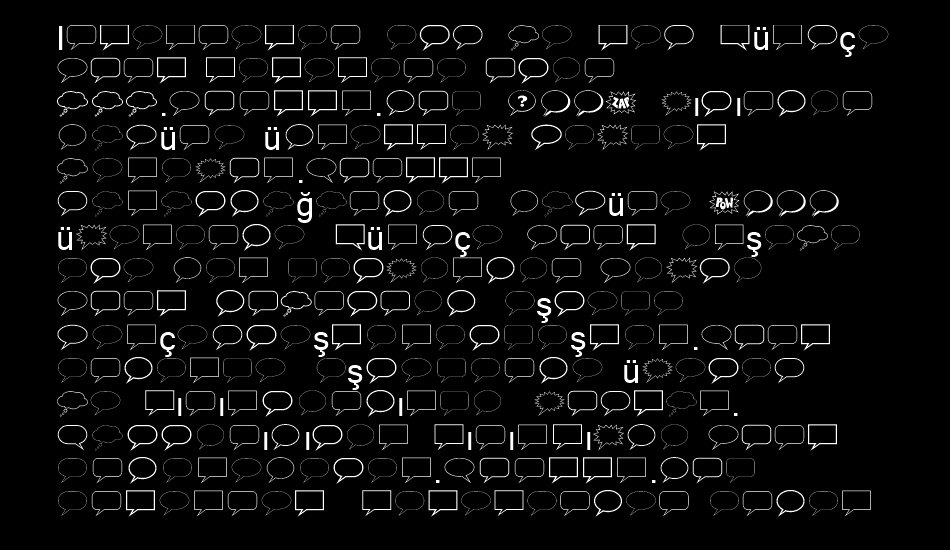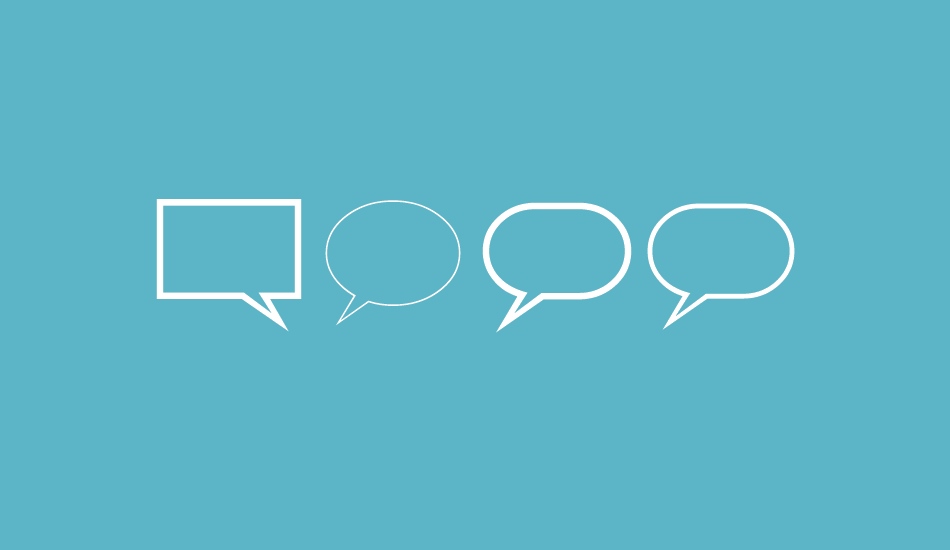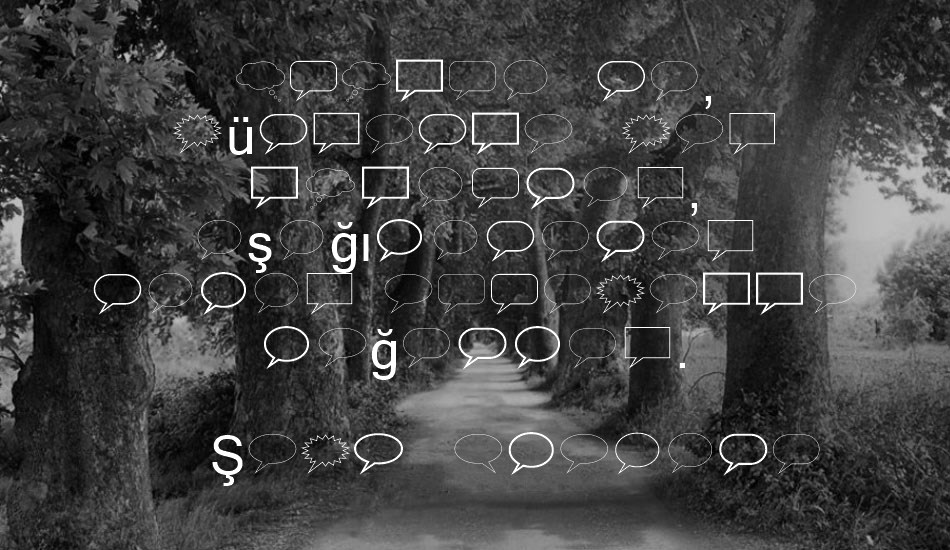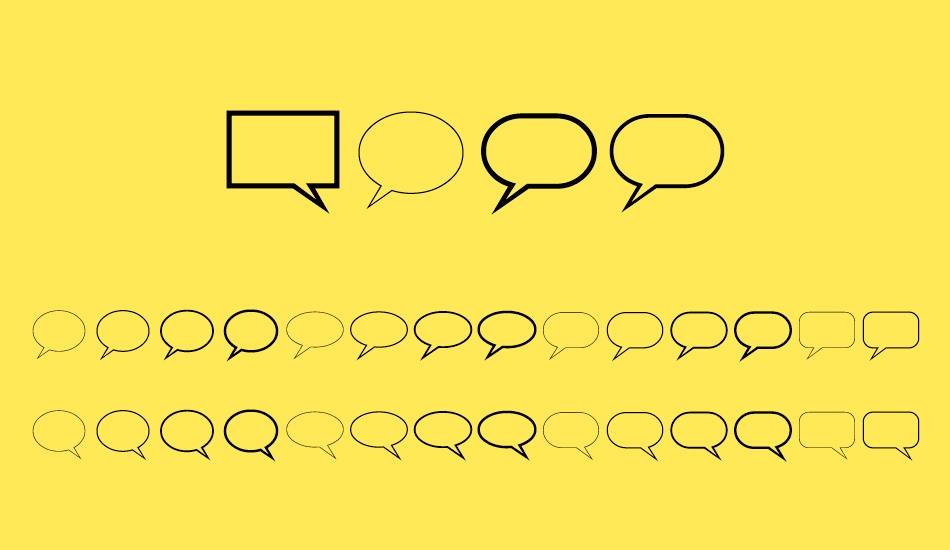
Talk font
About TalkBalloons Font 1.0
by Jonathan Macagba
TalkBalloons is a font with 62 "talk balloon" symbols. These
balloons are often used in comic strips to indicate something
being said by a cartoon character. The lowercase characters
contain talk balloon symbols with various line weights and
shapes pointing left. Uppercase characters contain the same
balloons pointing right. The numerals contain various balloon
symbols with the question mark ("?") and exclamation mark ("!")
characters. TalkBalloons also includes "thought" balloons and
"shout balloons as well as "ZAP", "BAM" and "POW" symbols (for
you Batman fans).